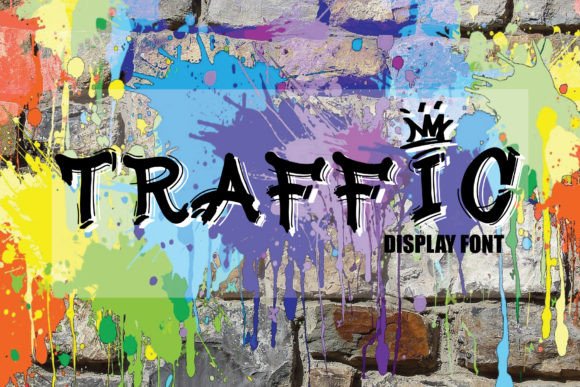
Feast your eyes on Traffic Font, the culinary-inspired display font that's guaranteed to tantalize your taste buds and leave your designs hungry for more. Crafted by the ingenious minds at KtwoP, Traffic Font is a delectable blend of urban grit and playful charm, specially designed to elevate your food-related creations to new heights of flavor.
Picture this: a sizzling steak sizzling on the grill, its aroma wafting through the air, beckoning you to take a bite. Or, imagine a perfectly ripe strawberry, its juicy sweetness bursting in your mouth, leaving you craving more. These are the sensory experiences that Traffic Font evokes, capturing the essence of food in a visual symphony of lines and curves.
With its distinctively outlined characters, Traffic Font exudes an air of urban sophistication, reminiscent of bustling city streets and vibrant food markets. Its casual, approachable style invites diners to indulge in your culinary creations, promising an unforgettable gastronomic journey.
Whether you're a restaurateur crafting a mouthwatering menu, a food blogger sharing your latest culinary adventures, or a designer seeking to create packaging that pops, Traffic Font is the secret ingredient you've been searching for. Its versatility extends beyond the world of food, lending its unique charm to a wide range of projects, from fashion and lifestyle to travel and entertainment.
So, let Traffic Font be your culinary muse, inspiring you to create designs that are as visually satisfying as they are delicious. Dive into the world of flavors, textures, and aromas, and let your creativity run wild. The possibilities are endless, and the results are sure to be nothing short of extraordinary.